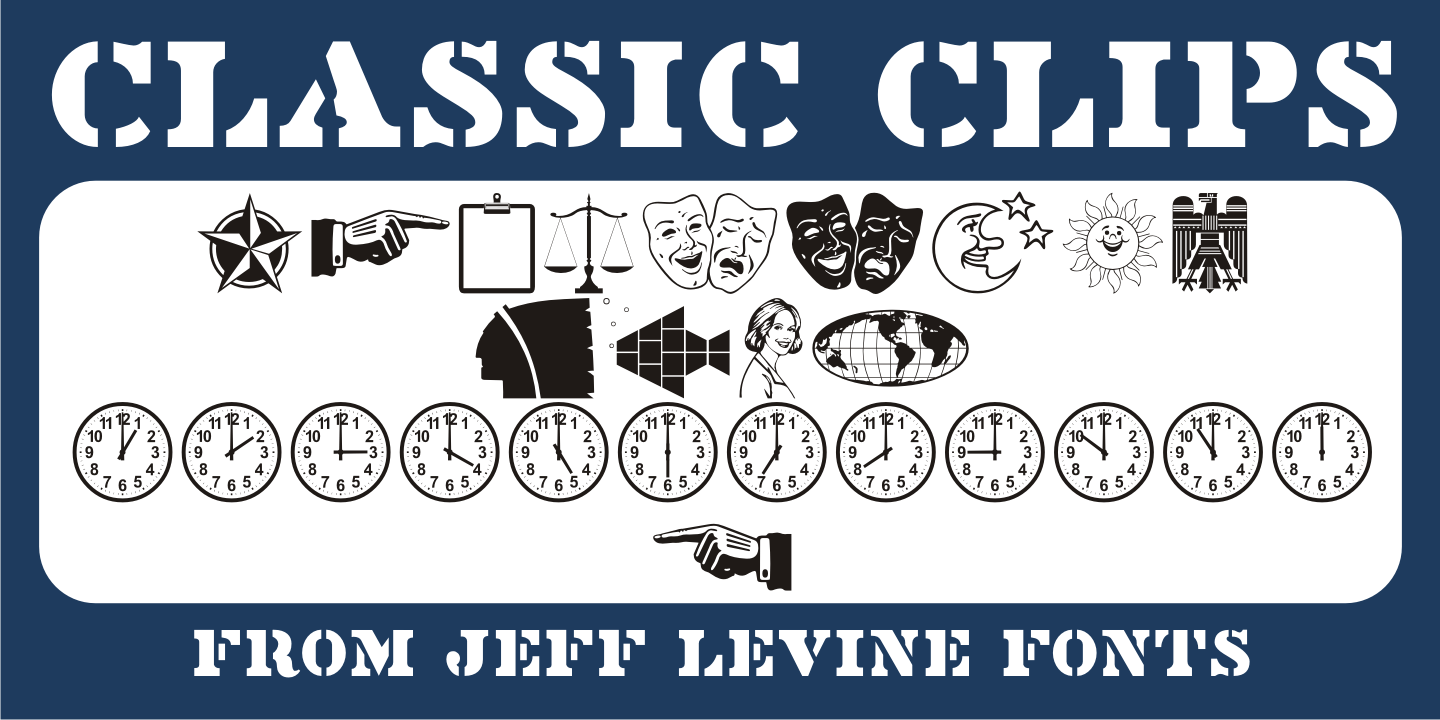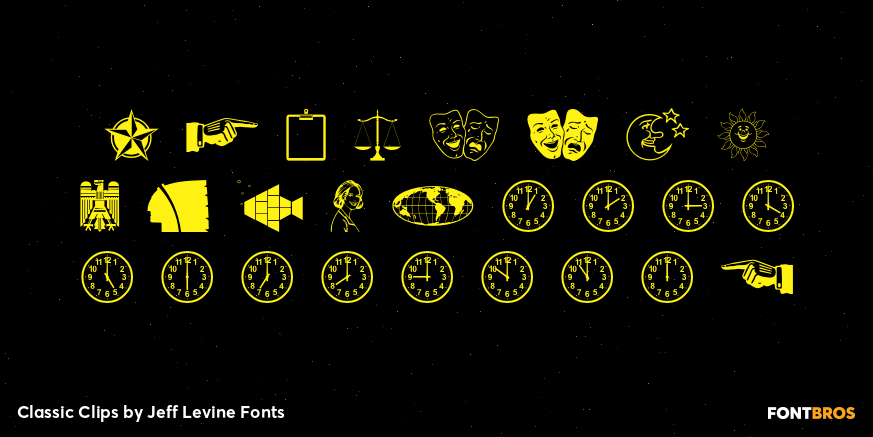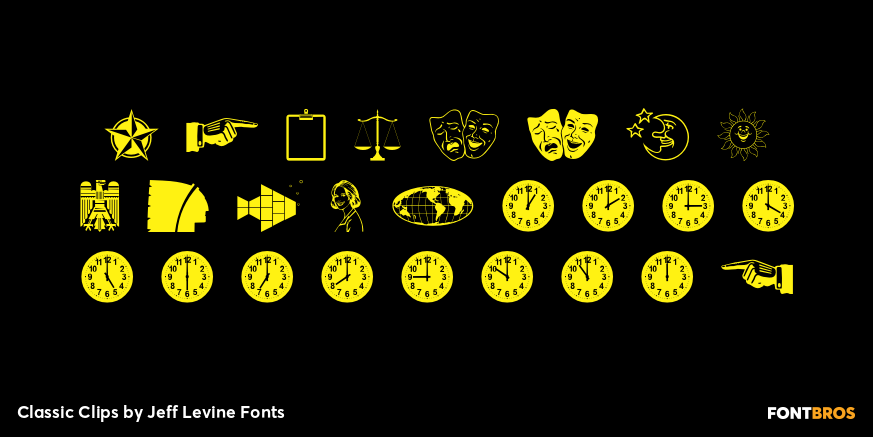
Classic Clips
During the years of physically doing camera-ready paste-up work before the advent of the digital age, clip art books dominated the way stock art was added to a print project.
Clip art books were eventually replaced by clip art CDs, DVDs and online download sites, just as the books themselves had replaced the stock photo engravings of the letterpress era.
With the kind permission of Graphic Products Corporation, Jeff Levine Fonts offers up a sampling of images found within the pages of Graphic Source clip art books; aptly entitled Classic Clips JNL.